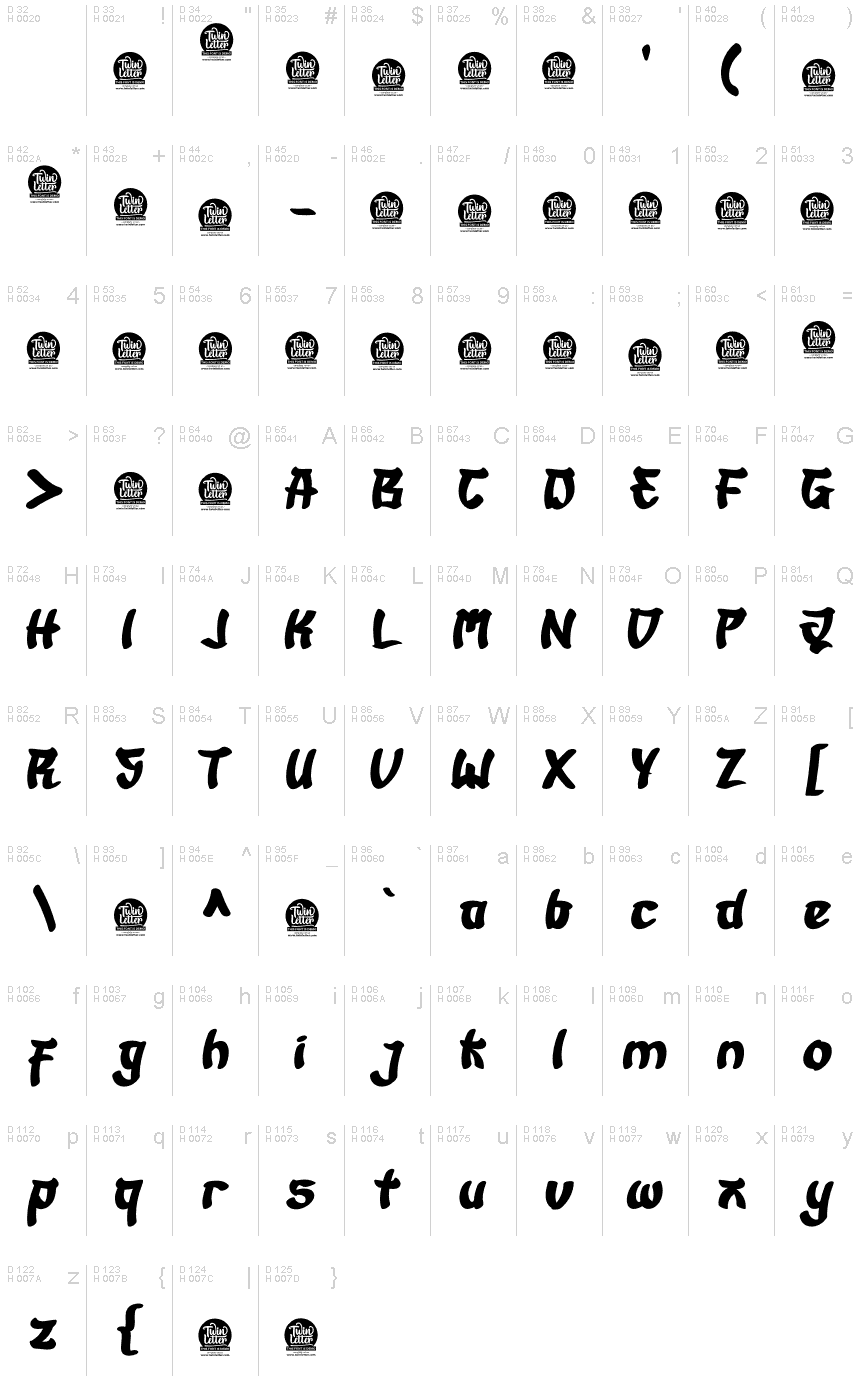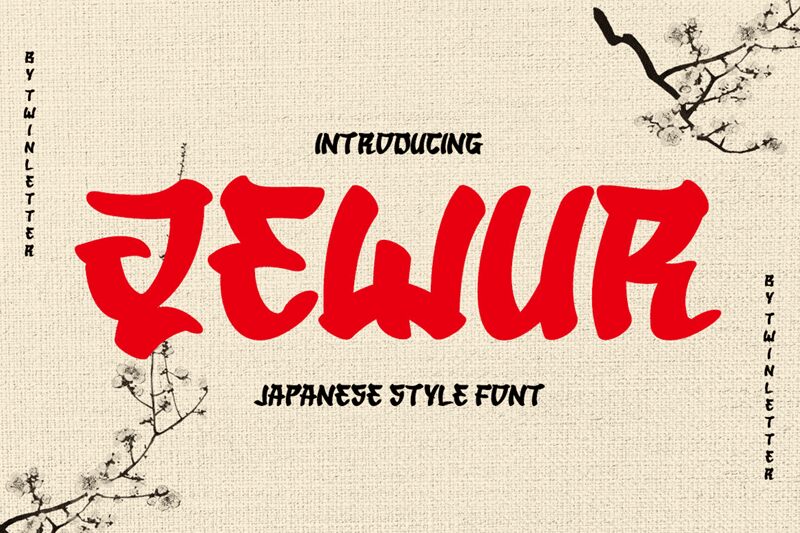
QEWUR is a bold foreign font designed by ROZI, inspired by Japanese culture. This unique and creative font can be used in various projects such as logos, product packaging, posters, and more.